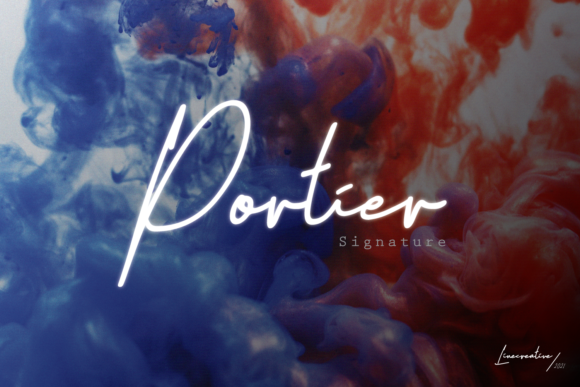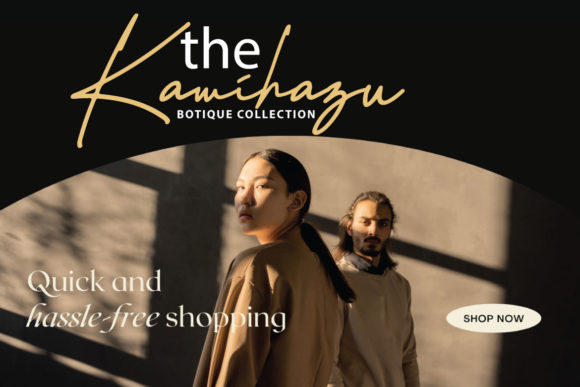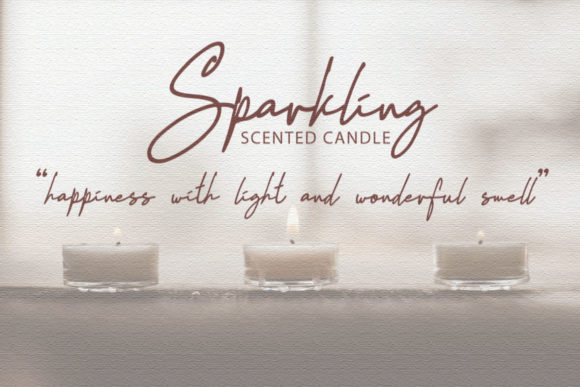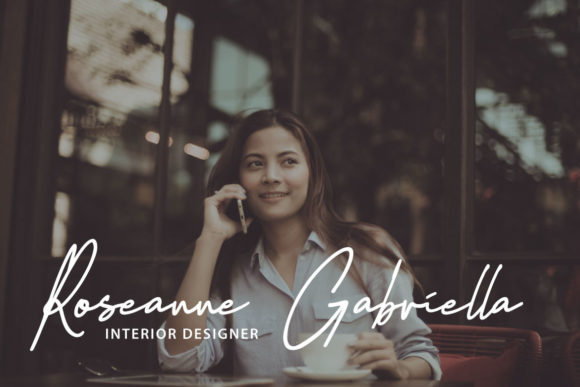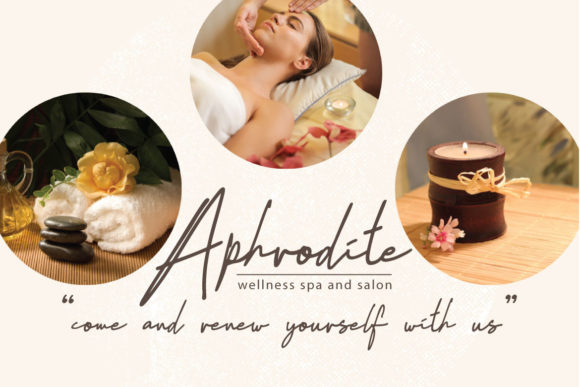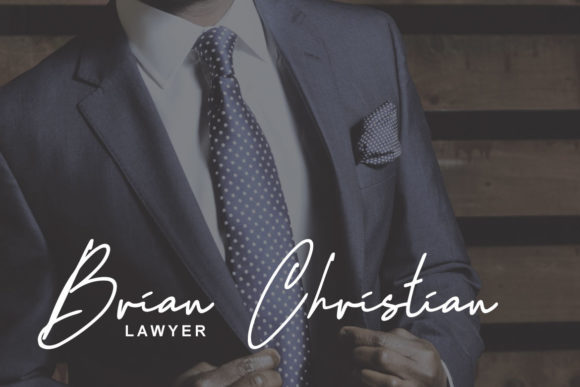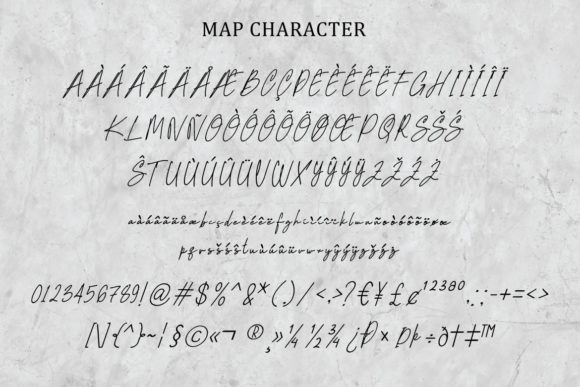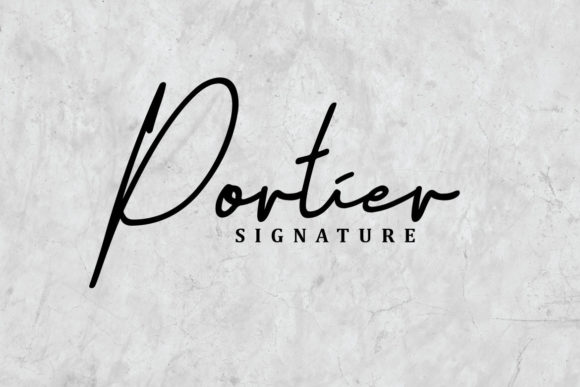
Portier Signature Font
About Portier Signature Font
Portier signature is a fascinating handwritten font, carefully crafted in a stylish, modern way. It is perfectly suitable for signature-styled logos, stylish branding projects, handcrafted stationery, and much more!